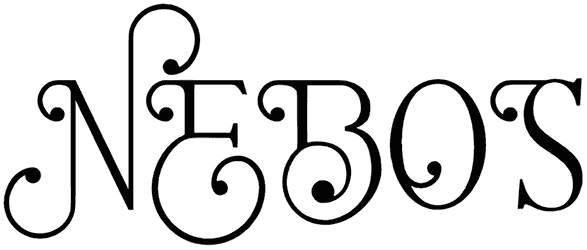
Nebos Font
If you want to do this gorgeous swirly font in front of you any justice, make sure to use it on your different romantic and joyous designs. That’s the only way to unleash its full potential as an antique font with lots of decorative details to share with your lettering.
Any wedding dress website, luxury restaurant business card, flower shop poster, and all kinds of spring designs can benefit from the flourishes incorporated in the tasteful style of this floral font.